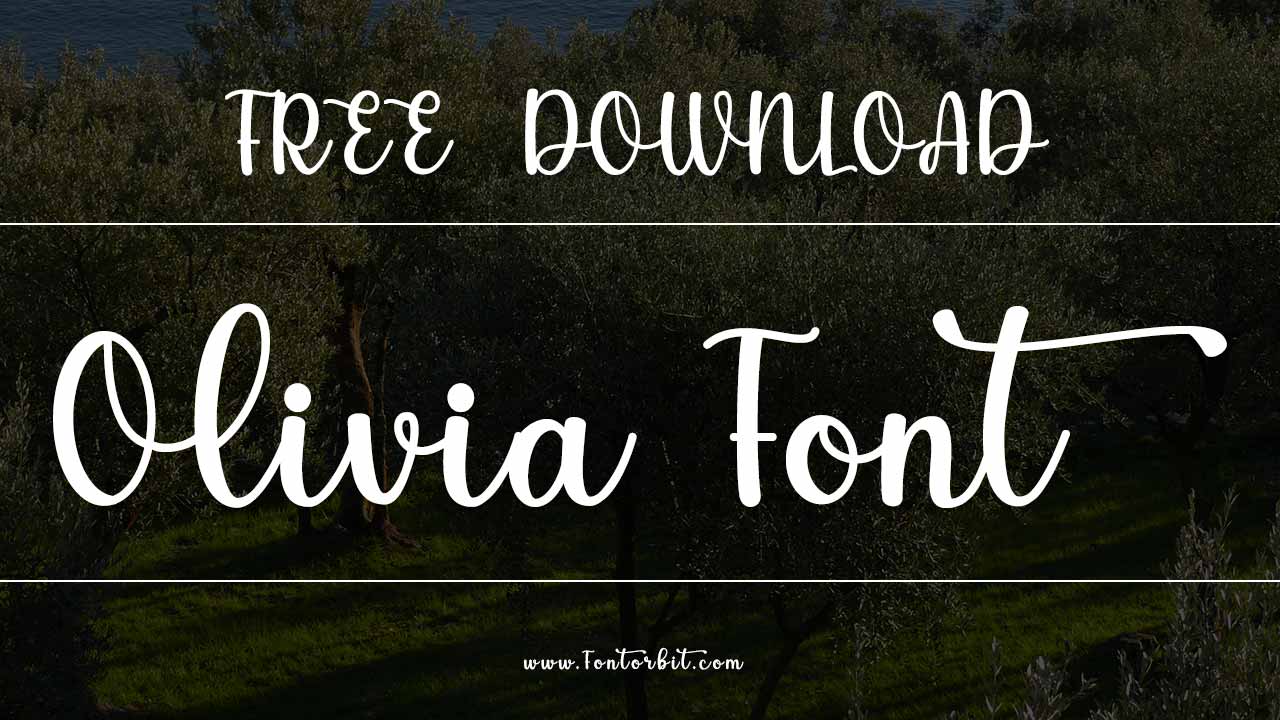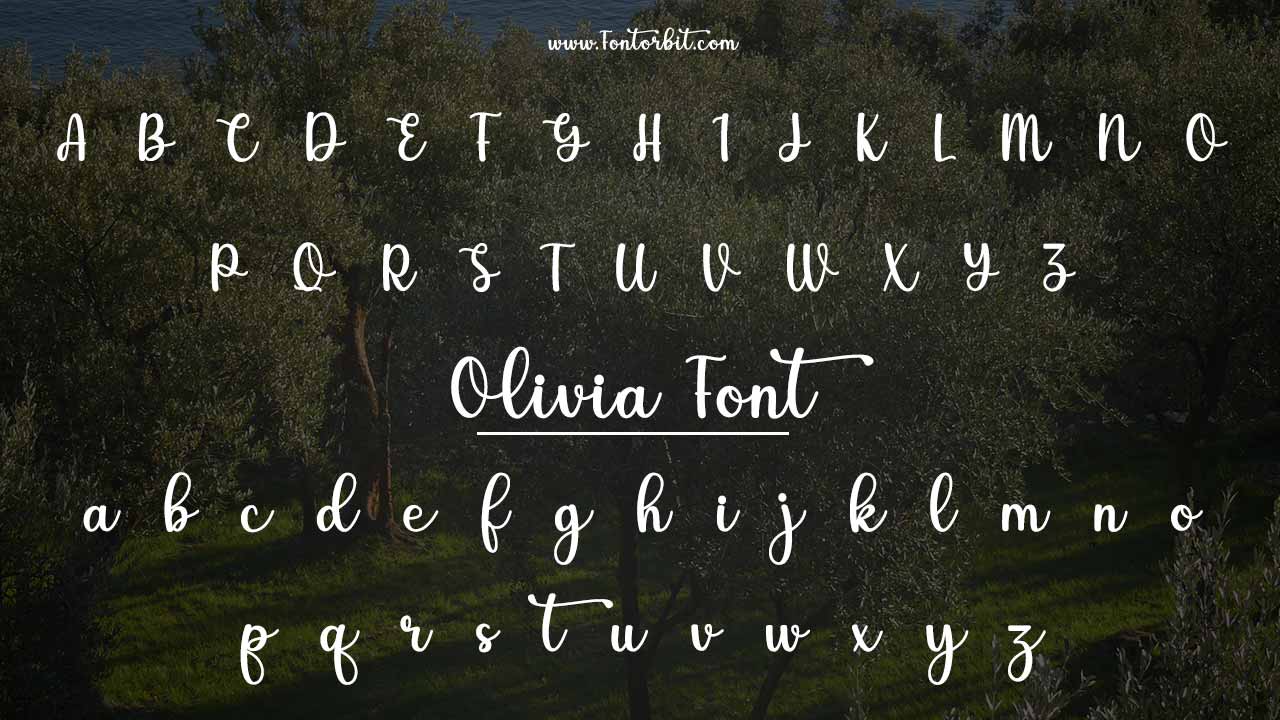
Olivia Font is a calligraphy font designed by Nopianti that captures elegance and charm. This script font is a favorite among designers and creators for elevating any project, from invitations to branding projects. Combining modern fonts with vintage inspiration, Olivia Font is perfect for decorative fonts, logos, and more.
Olivia Font Family: Elegance In Every Curve
The Olivia Font Family is a collection of versatile, high-quality fonts that combine modern and retro aesthetics. Whether you are working on invitations or branding, its graceful curves and intricate details make it stand out. Below are the font family names and details:
- Olivia Regular: A balanced and versatile typeface for various uses.
Below Are The Key Features And Details:
- Font Type: Script font with handwritten and calligraphy elements.
- Design Style: A blend of modern elegance and vintage charm.
- Variants: Includes Olivia Script Font and Olivia Serif Font.
Why Choose Olivia Font?
Here Are Some Reasons Why Olivia Font Is A Must-Have For Your Projects:
- Perfect for Invitations: Add sophistication to wedding or event invitations with its flowing script style.
- Ideal for Logos: Olivia Font enhances branding projects for beauty products, boutiques, and luxury brands.
- Great for Greeting Cards and Posters: Whether it’s a heartfelt message or an inspirational quote, this font shines in decorative designs.
- Excellent for Magazines and Labels: Its intricate curves make it a great fit for editorial layouts and product packaging.
- Versatile for Web Design: Olivia Font adds a refined touch to websites, especially for creative or boutique themes.
3. What Font Styles Are Available In The Olivia Font Family?
The Olivia Font Family includes multiple styles, such as Olivia Script Font, Olivia Serif Font, and Olivia Regular. These options allow for a wide range of design applications, from vintage fonts to modern fonts.
4.Can Olivia Font Be Used For Branding Projects?
Yes, Olivia Font is perfect for branding projects. It’s widely used in beauty products, boutiques, luxury branding, and even magazine designs. Its elegance and versatility make it a top choice among font designers.
5.How Does Olivia Font Compare To Similar Fonts?
If you enjoy Olivia Font, you might also like Kong Font for bold, modern aesthetics or Patrick Mahomes Script for handwritten fonts. These fonts share similar character and charm, but Olivia Font’s elegance stands out for decorative fonts, greeting cards, and quotes.
6.Is Olivia Font Suitable For Use On Websites?
Absolutely! Olivia Font works well for creative websites, particularly for themes focused on luxury, boutiques, or beauty products. Its calligraphy font style ensures it remains an eye-catching choice for readers.